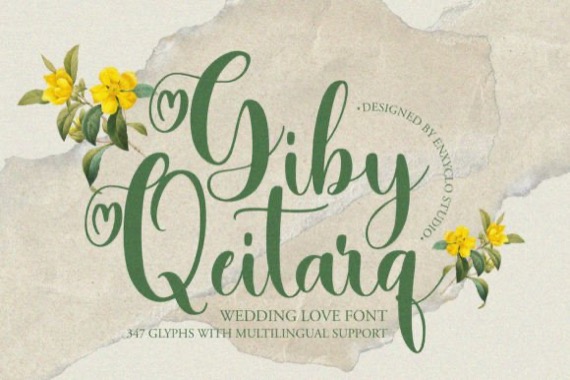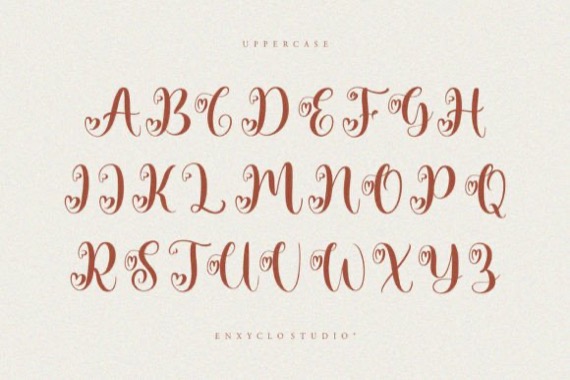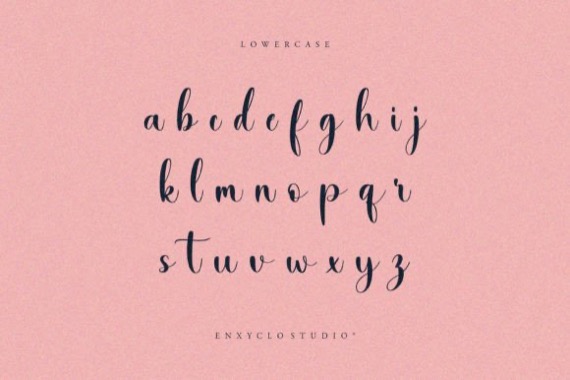
This is a fresh and cool script font from Enxyclo, NCL GIBY QEITARQ is a wedding love heart swash font. It is a unique handwritten script font with heart or love swashes. Masterfully designed to become a true favorite, this font has the potential to bring each of your creative ideas to the highest level! It was purposely crafted to be used in large point sizes, although it doesn’t lose its magic in small point sizes. It is perfect for wedding or romantic event, headline, billboard, magazines, website, titles, poster, branding, t-shirt design, and logos. No matter the topic, this font will be an incredible asset to your fonts’ library, as it has the potential to elevate any creation. With this beautiful font, absolutely you can make your project stand out from the rest.
Giby Qeitarq Calligraphy Font
Designer, Publisher: Enxyclo